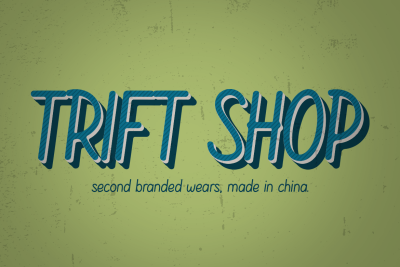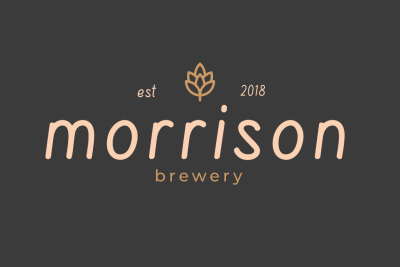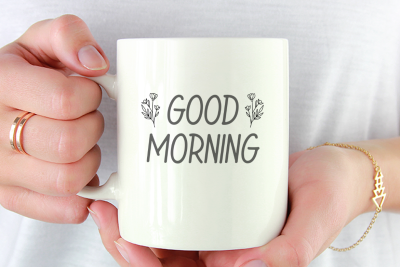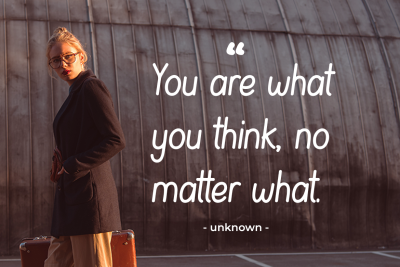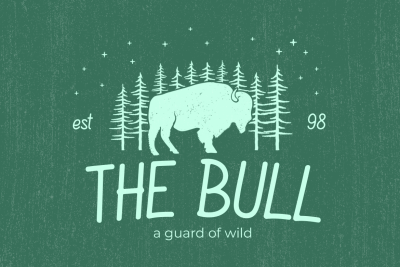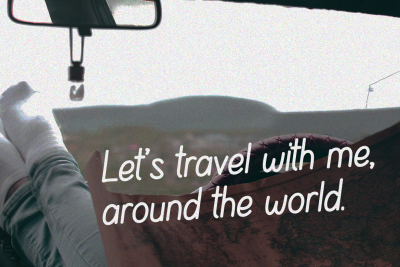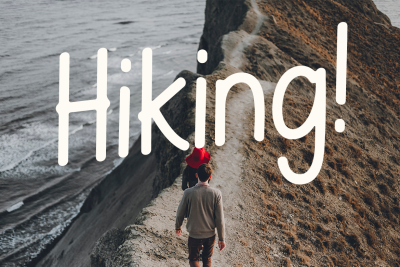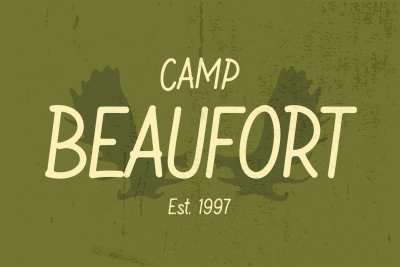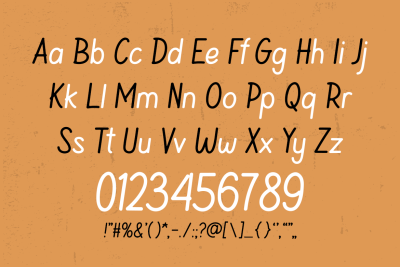
Handwriting Font Importante is a stylish and elegant typeface that beautifully mimics the flow of handwritten text. Designed with smooth strokes and balanced curves, it brings a personal and authentic feel to any design. Its natural charm makes it perfect for adding warmth and sophistication to creative projects. Whether used for branding, invitations, or social media graphics, this font delivers a polished yet approachable look.
What sets Handwriting Font Importante apart is its ability to transform ordinary text into something visually captivating. Each character reflects the nuances of genuine handwriting, adding individuality and personality. This makes it ideal for projects that need an emotional connection. Additionally, its clean readability ensures your message remains clear, whether in digital or print formats.
The font effortlessly combines traditional handwriting aesthetics with modern design trends. Its versatility allows it to adapt to both casual and professional themes. Whether you’re creating heartfelt messages or sleek branding materials, this font isย enhances the overall appeal of your work.
Handwriting Font Importanteย Perfect For
Handwriting Font Importante is ideal for those who want to add personality and charm to their designs. Itโs perfect for creating wedding invitations, event stationery, or romantic save-the-dates. The handwritten style evokes warmth and elegance, making it a great choice for special occasions.
The font is also a fantastic option for small businesses and entrepreneurs. It works well for logos, packaging, or promotional materials, helping brands connect authentically with their audience. For social media creators, it adds a stylish and approachable touch to posts, banners, and graphics.
Educators and students can use it to enhance presentations or creative classroom materials. Its friendly yet professional look ensures projects stand out while remaining clear and engaging. DIY enthusiasts will also find it perfect for personal crafts, such as scrapbooks, journals, or custom gifts.
In conclusion, this font is offers a unique blend of sophistication and warmth. It transforms simple text into meaningful and visually appealing designs. Whether for personal or professional use, this font ensures your projects leave a lasting impression.